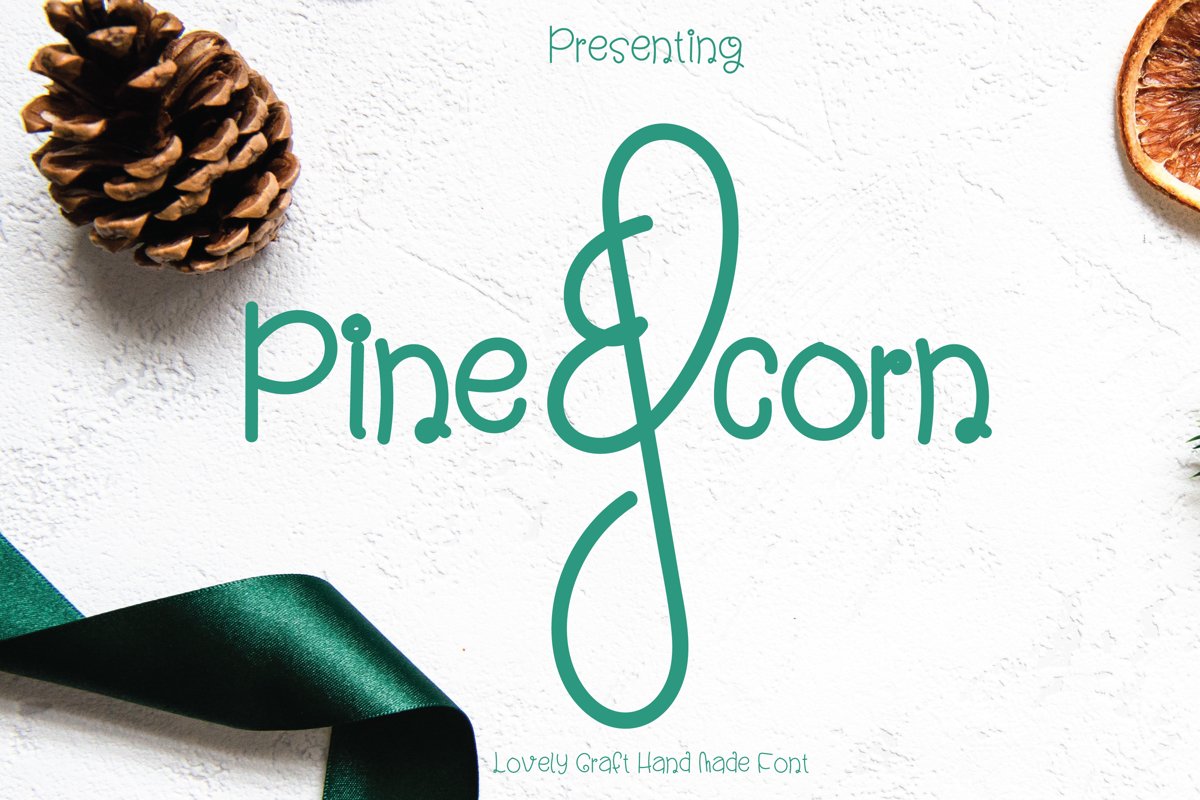
Pine & Corn - A Cute Love Story
a cute pinecorn font is ready for you to make amazing funny projects, kids classroom decoration, even for shirts and cups! this will make everyone day when they see's it!